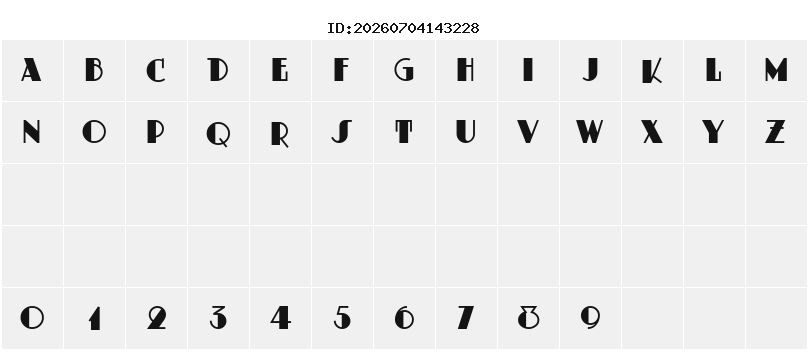
DustyRose Preview
• Font Name: DustyRose
About DustyRose.ttf
DustyRose.ttf is a modern, elegant sans-serif font designed for ultimate readability and visual harmony. Perfect for branding, headlines, web design, and print materials.